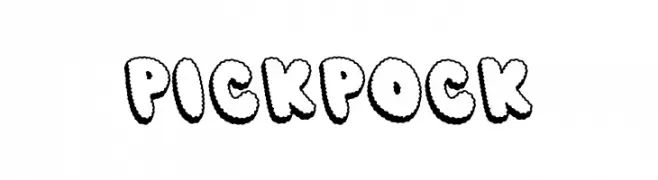
( Fonts by Jonathan S. Harris )
A bold, playful font with a bubbly, organic design.
( Fonts by The Docallisme )
A playful, bold font with scalloped edges and a bubbly appearance.
( Fonts by Almarkhatype )
A playful, bold, and bubbly font with rounded edges and a whimsical style.
( Fonts by Sketype Studio )
A playful, bubbly font with rounded, hand-drawn characters.
( Fonts by Kong Font )
A bold, playful font with rounded, bubbly characters.
( Fonts by Sensatype Studio )
A bold, playful font with rounded edges and a bubbly appearance.
A bold, bubbly script font with a playful and adventurous style.
( Fonts by Eddy Goodboy )
A playful, bold font with a bubbly and whimsical design.
A playful, hand-drawn font with rounded, bubbly characters.
( Fonts by Erik Studio )
A playful, bold font with rounded, bubbly characters perfect for whimsical designs.